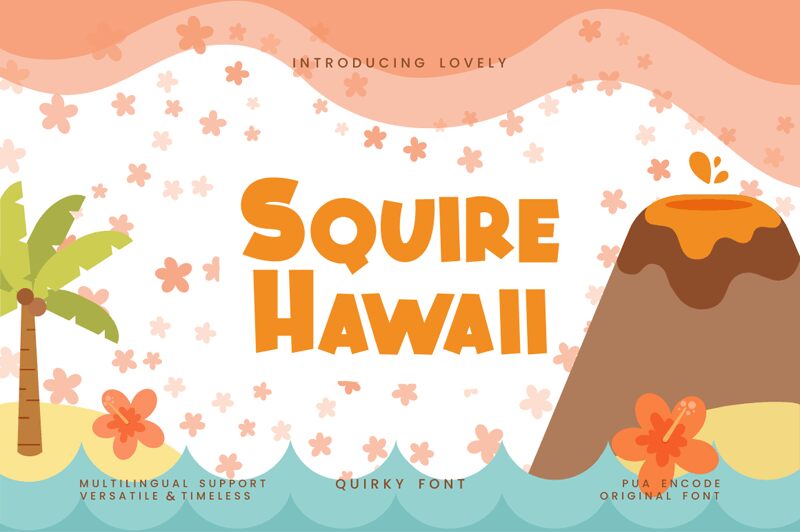
Squire Hawaii font by FinTypeStudio is a vibrant display font that bursts with bold, cartoonish charm. Its playful, exaggerated forms make it perfect for projects requiring a touch of whimsy and attention-grabbing style. The bold weight and distinctive characters convey a sense of fun and creativity, making it ideal for headlines, posters, or any design seeking to evoke a lively atmosphere.
A versatile choice for branding, children's books, or event promotions, Squire Hawaii's unique aesthetic ensures your text stands out with personality. This free font offers designers an opportunity to download and incorporate it effortlessly into various creative endeavors. Enthusiastic creatives will appreciate its blend of character and functionality-tailored for those who want their message to resonate dynamically in both print and digital realms.